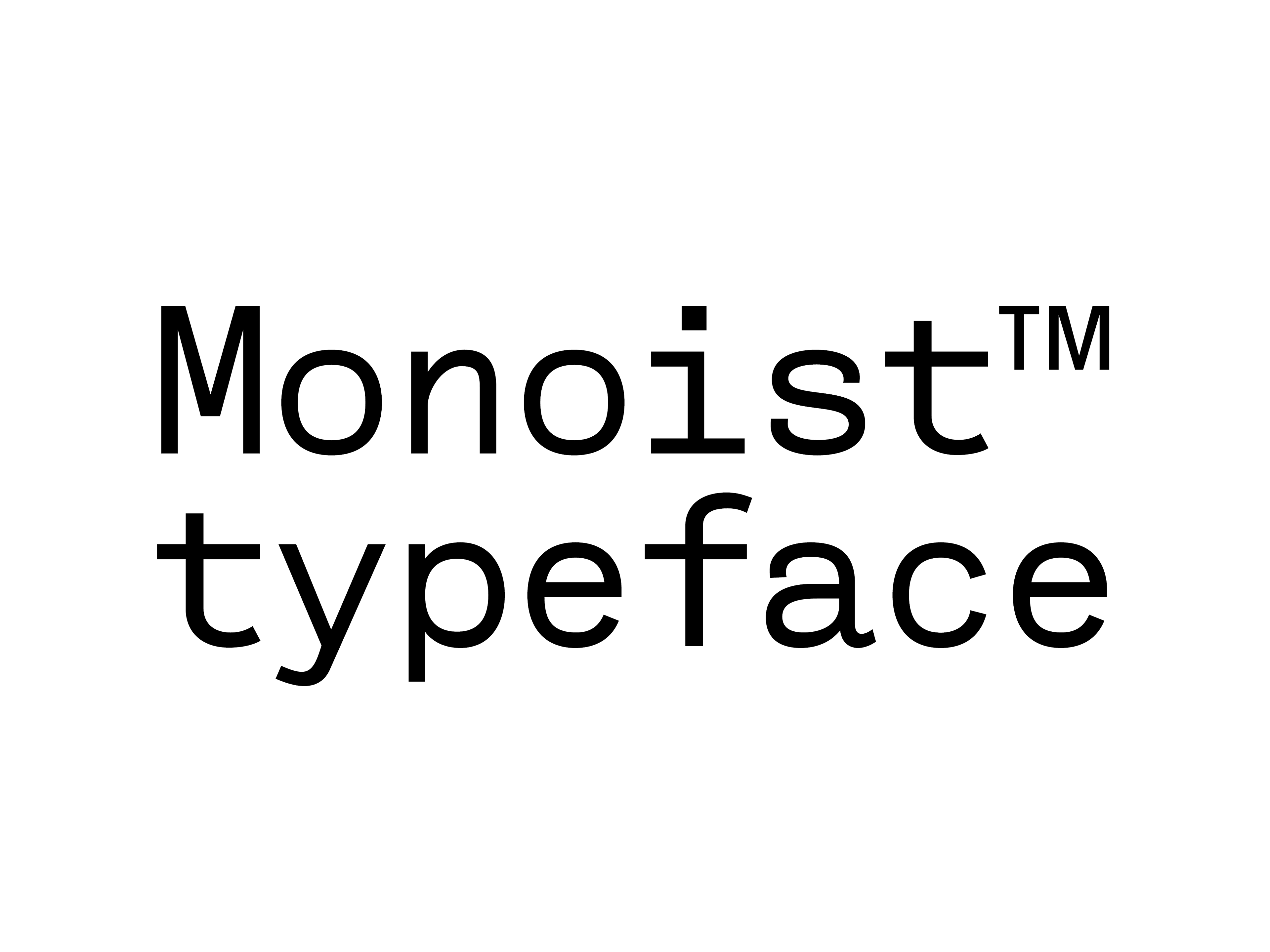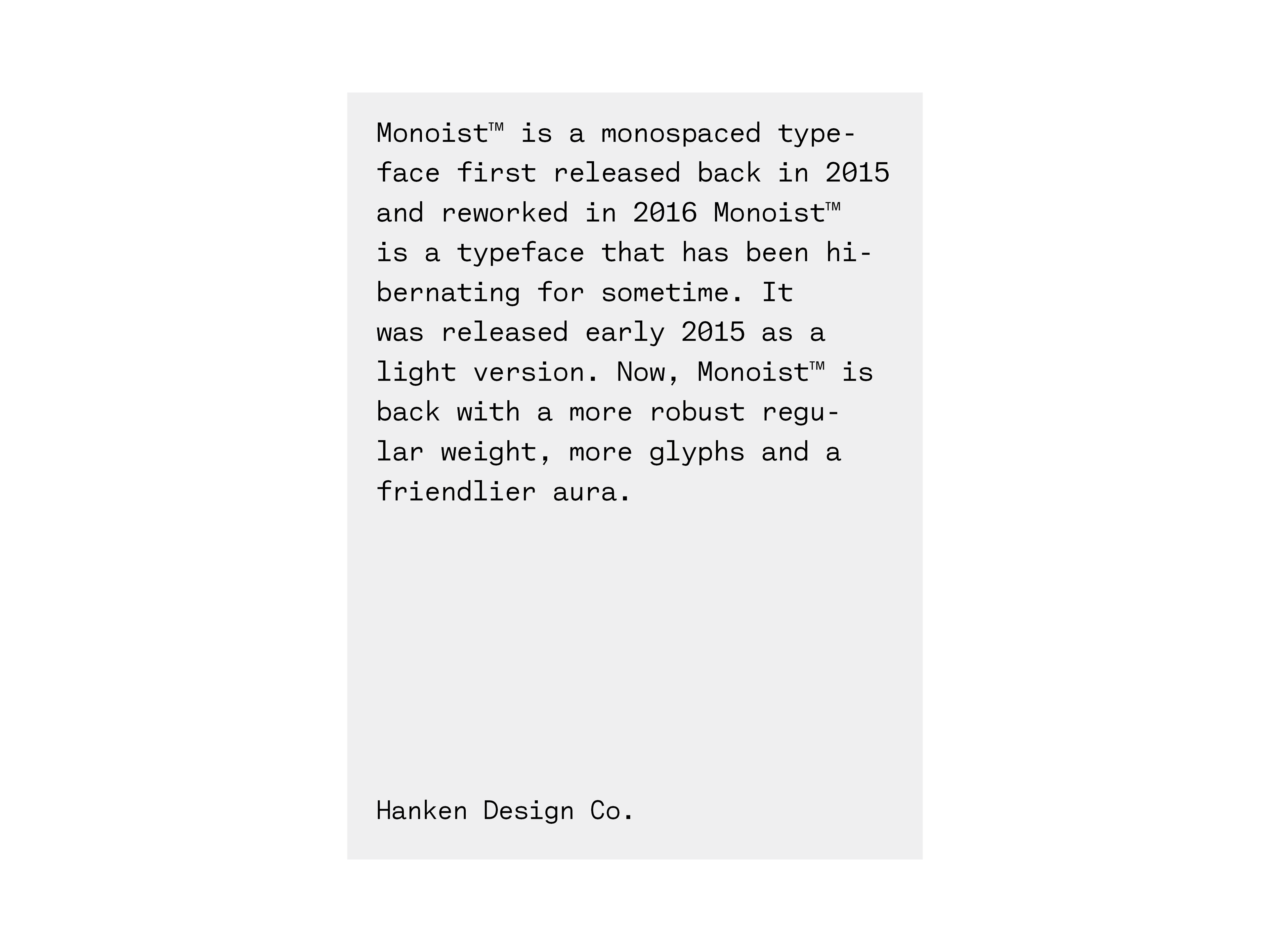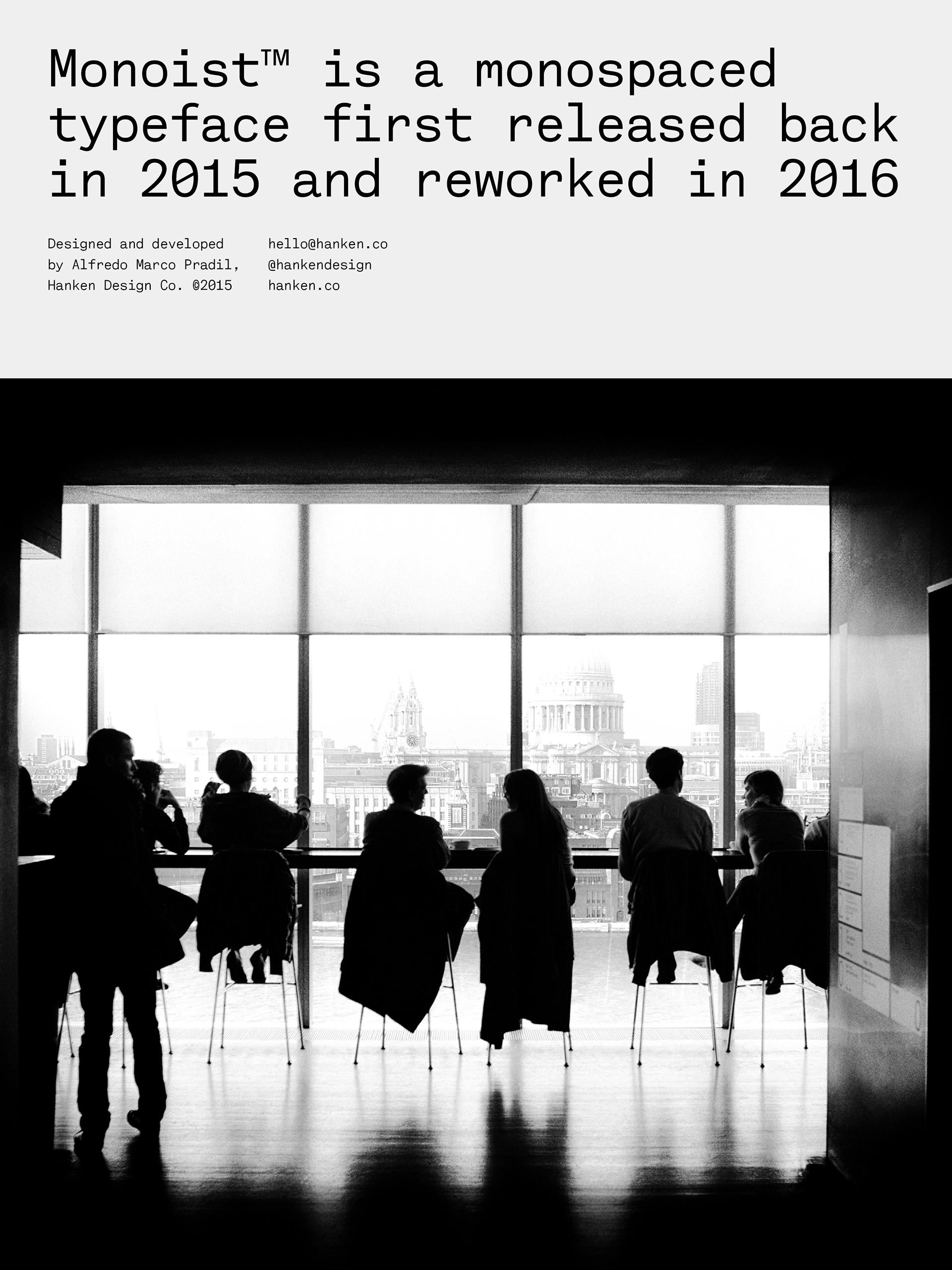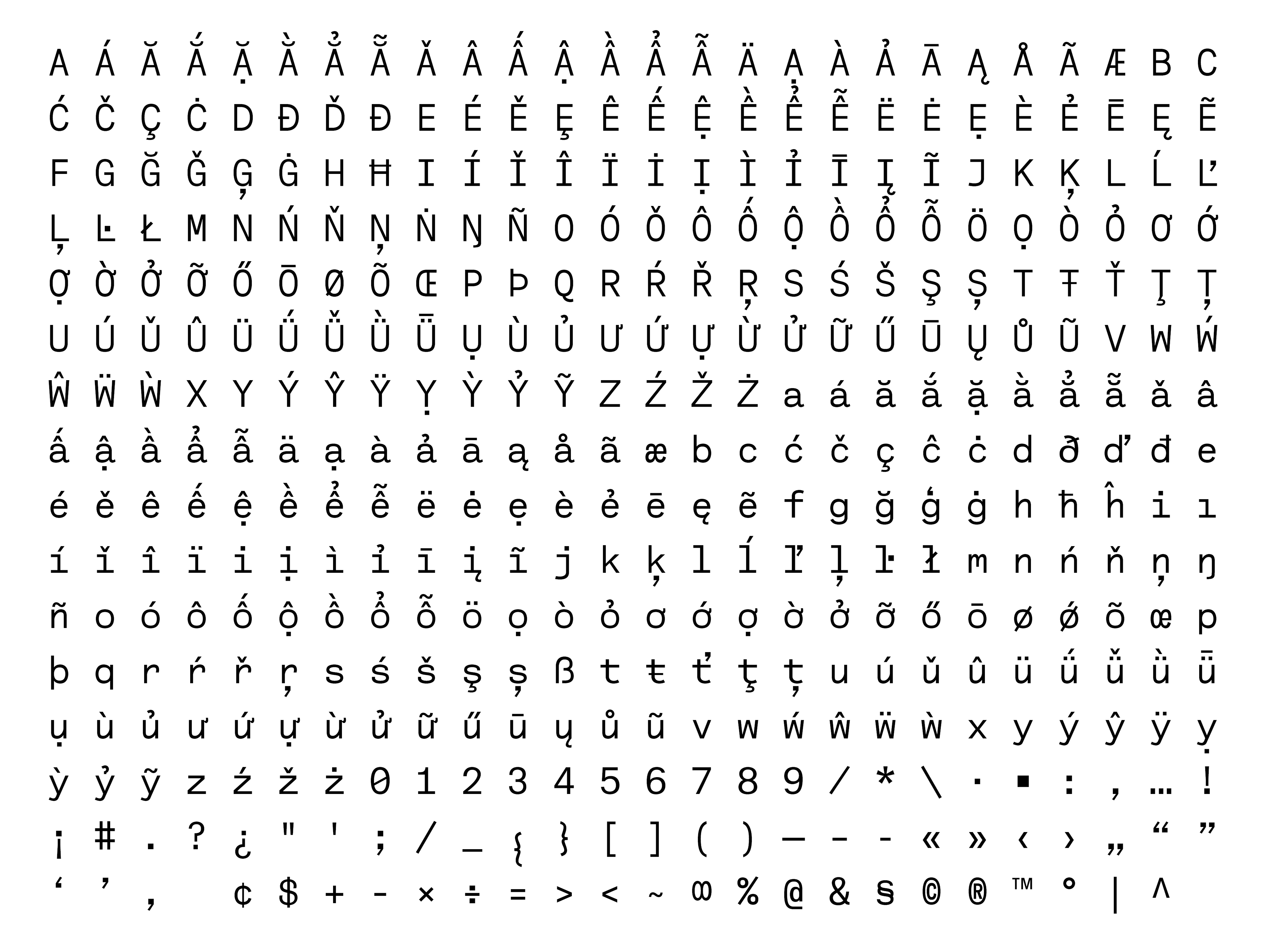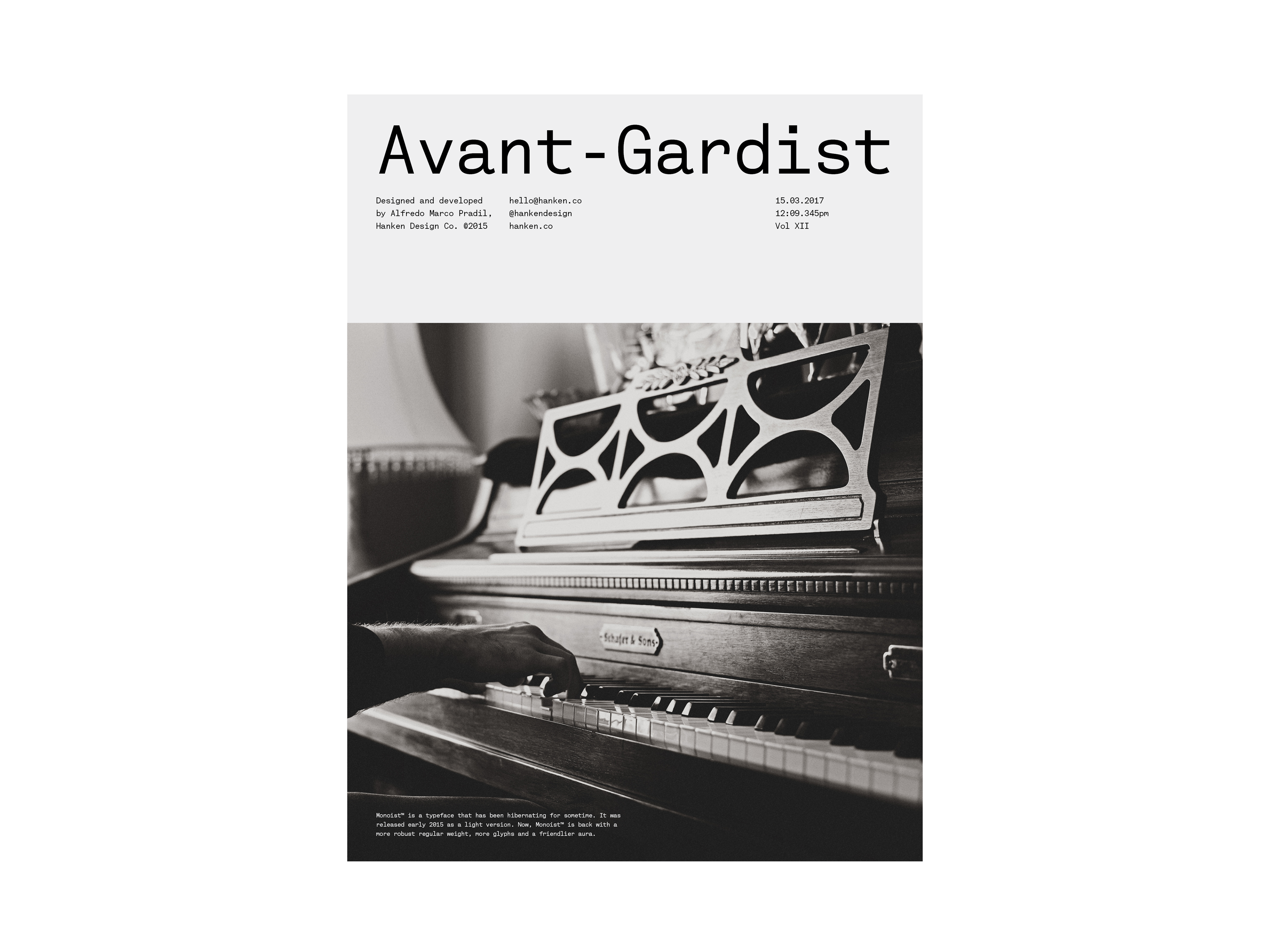
Monoistâ„¢ is a typeface that has been hibernating for sometime. It was released early 2015 as a light version. Now, Monoistâ„¢ is back with a more robust regular weight, more glyphs and a friendlier aura.